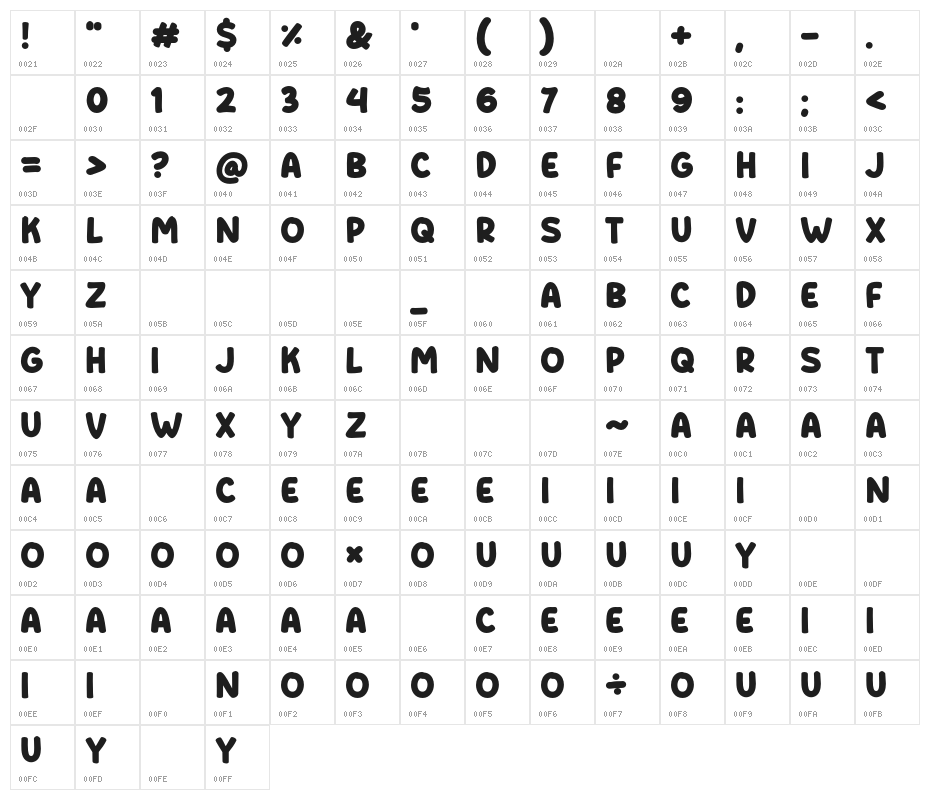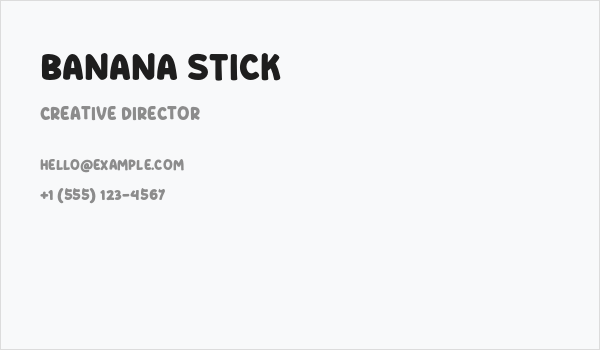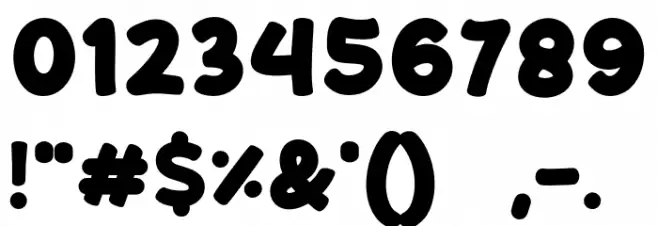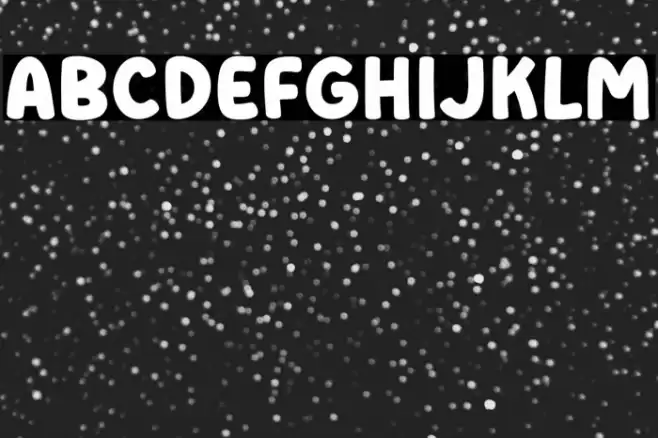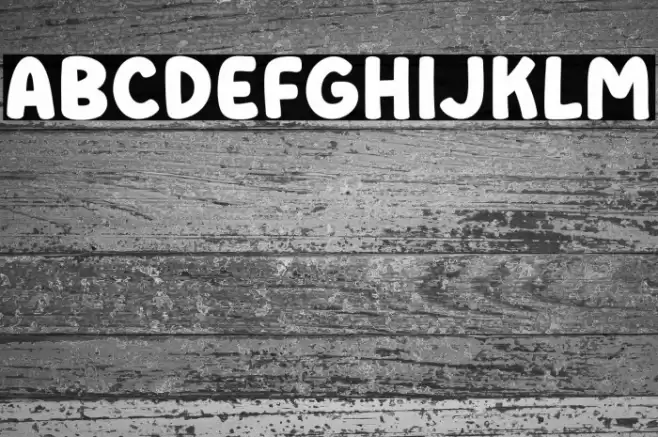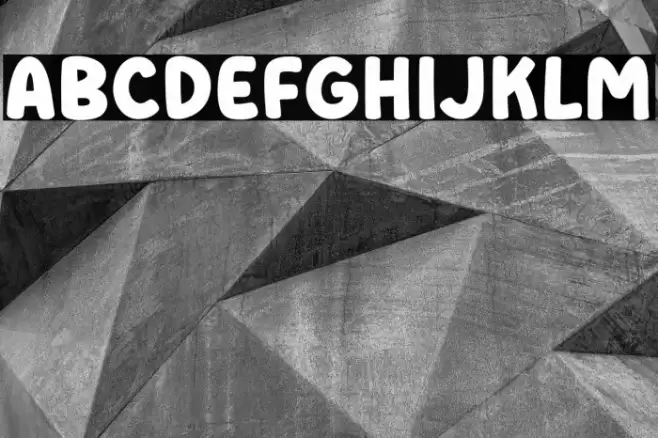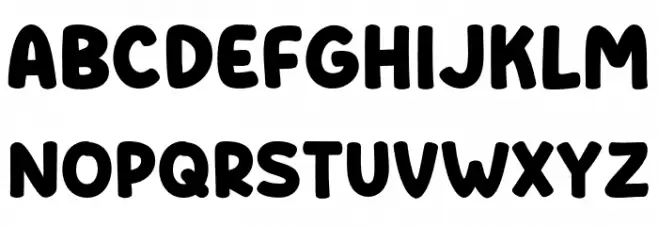
Banana Stick Font
Banana Stick Description
This playful and bold font features rounded, thick strokes that give it a friendly and approachable appearance. The characters are uniformly wide, with consistent stroke thickness throughout, creating a cohesive and balanced look. The font's rounded edges and smooth curves contribute to its casual and informal style, making it ideal for projects that require a fun and lively touch. It includes a full set of uppercase and lowercase letters, numbers, and a variety of special characters, ensuring versatility in its application.
| Overall Style | Playful |
| Proposed Projects | Ideal for children's books, playful branding, party invitations, and casual social media graphics. |